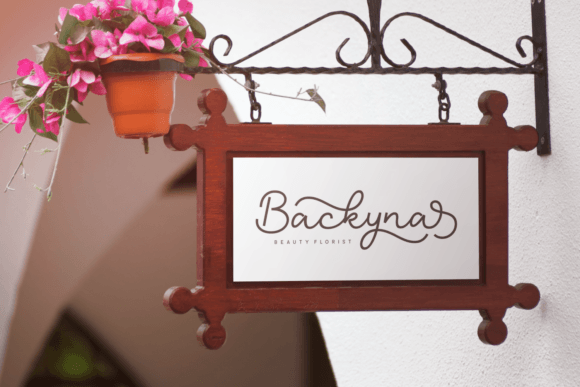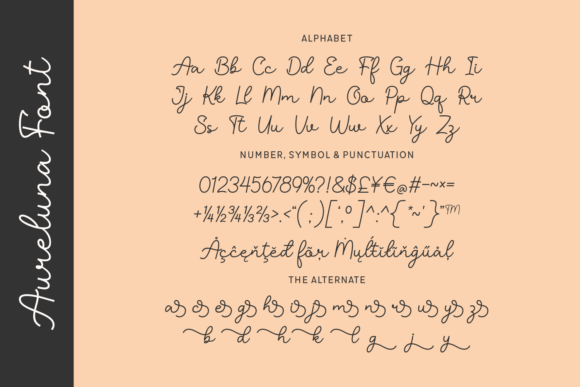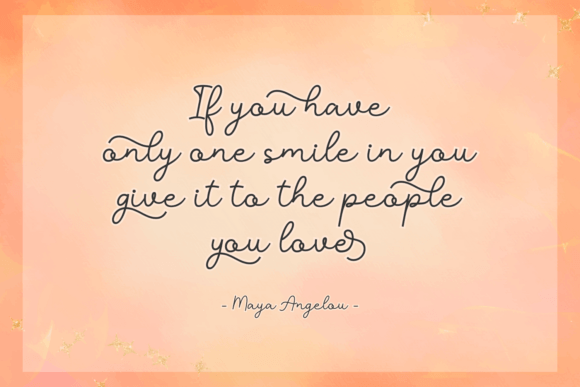
Discover the Magic of Aureluna Font
Have you ever been stuck on a design project, searching for the perfect font to bring your vision to life? I know I have. It’s that moment when you’re pouring over font options, trying to find the one that captures the essence of your creative idea. For me, it was a wedding invitation design that required a delicate, elegant touch. That’s when I stumbled upon the Aureluna Font – a game-changer for designers looking to add a touch of sophistication to their projects.
Aureluna Font is a beautifully crafted monoline script font, perfect for wedding stationery, branding, and other creative projects that demand a sense of refinement. Its unique swashes and minimalist design make it a valuable addition to any designer’s toolkit. Whether you’re a seasoned pro or just starting out, Aureluna Font is sure to impress.
Aureluna Font Key Features
- Unique Characteristics: This elegant font features intricate details and a touch of mysticism, making it perfect for designs that require sophistication and mystery.
Aureluna Font Review
I recently had the chance to work with the Aureluna font, and I must say it’s a beautiful addition to any design project. ✨ Here are some of its strengths:
- Unique blend of modern and classic elements: Aureluna’s fusion of clean lines and elegant curves makes it a great choice for projects that require a touch of sophistication.
- Excellent legibility: The font is incredibly easy to read, making it perfect for body text and headings.
- High-quality glyphs: The font includes a wide range of glyphs, including special characters and accents, making it a great choice for multilingual projects.
However, there are a few limitations to keep in mind: ⚠️
- Limited font sizes: While the font looks great at larger sizes, it can become a bit pixelated at smaller sizes.
- Not ideal for very small projects: With over 1,000 glyphs, the font file size can be quite large, making it less suitable for very small projects or those with limited storage space.
Overall, I’m really impressed with the Aureluna font. It’s a great choice for designers who want to add a touch of elegance and sophistication to their projects. With a little attention to font size and project scope, it can be a real showstopper.
Getting the Most Out of Aureluna Font
For the best results, use Aureluna Font in conjunction with a bold and elegant design aesthetic.
Aureluna Font is ideal for:
- Artistic and creative projects